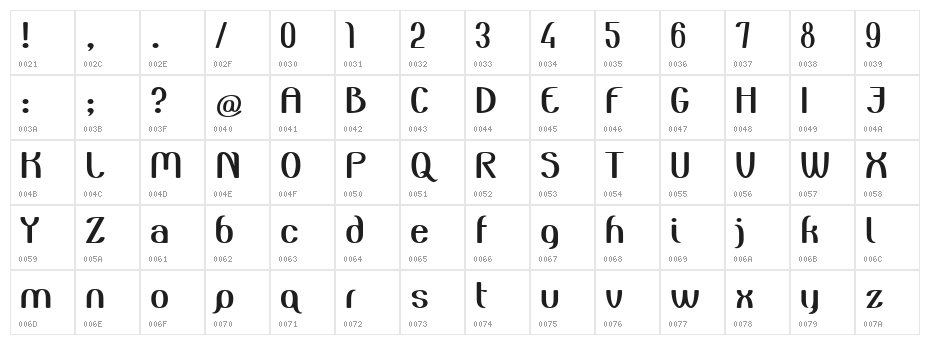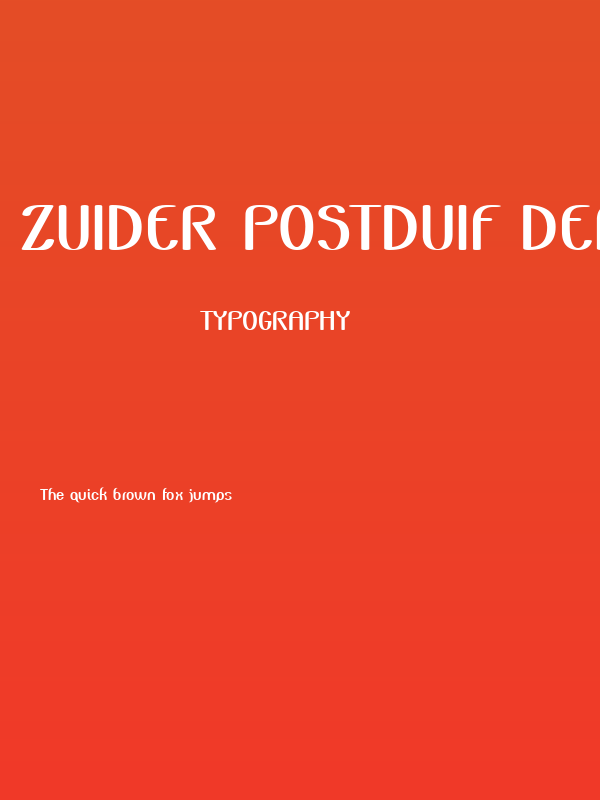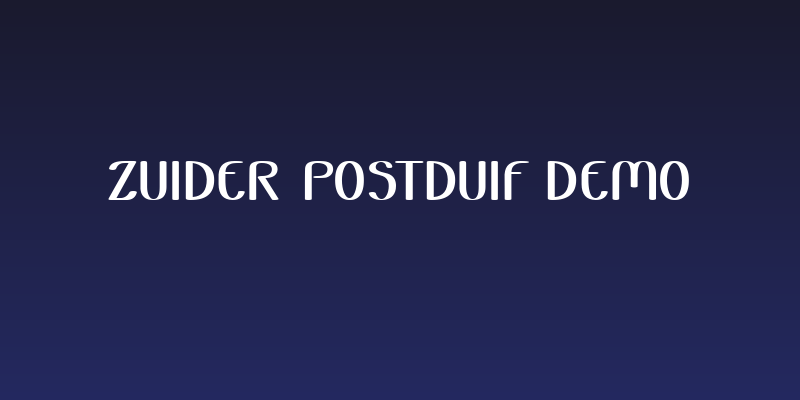
Zuider Postduif Demo Font
Zuider Postduif Demo Description
This font features a unique blend of modern and vintage styles, characterized by its rounded edges and smooth curves. The uppercase letters exhibit a playful yet sophisticated design, with some characters like 'Q' and 'R' having distinctive tails that add a touch of elegance. The lowercase letters maintain a consistent flow, with a slight slant that gives them a dynamic appearance. Numbers are bold and easily readable, making them suitable for various applications. Special characters are designed with the same attention to detail, ensuring a cohesive look across all elements.
| Proposed Projects | Ideal for branding projects, packaging design, and creative posters. |